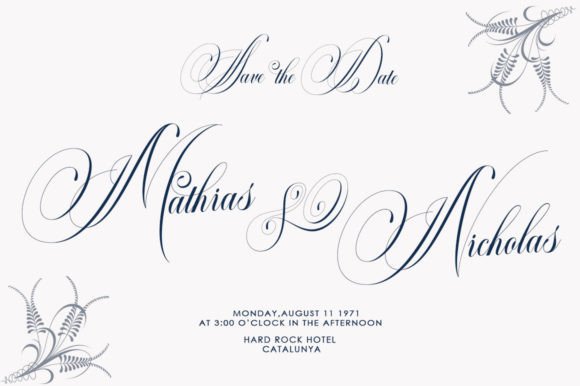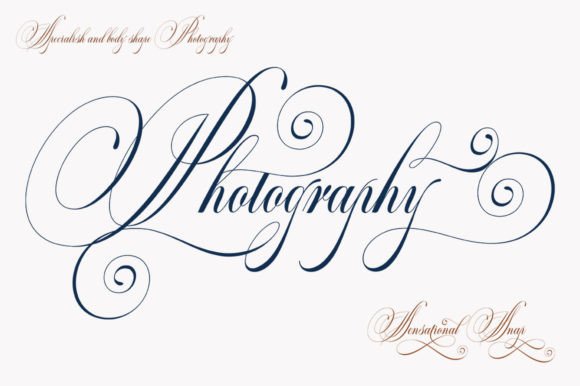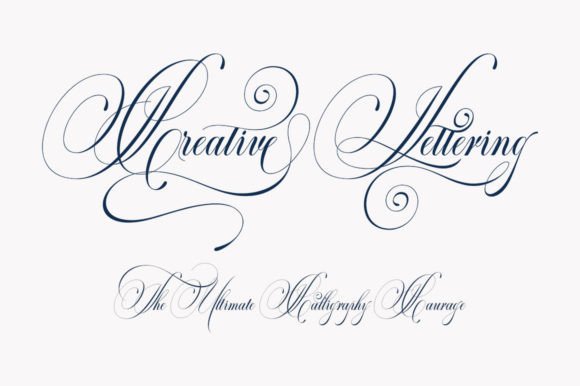
Classical Calligraphy Font
About the Classical Calligraphy Font
Welcome to the world of Classical Calligraphy Font, a typeface that will inspire your next great project. Classical Calligraphy is a vintage calligraphy script font that comes with beautiful alternative characters. Copperplate mixed calligraphy with a handwriting style to show its performance. Classical Calligraphy appears as a typeface that is smooth, clean, feminine, sensual, glamorous, simple, and highly readable.
It’s perfect for logos, wedding invitations, alcohol labels, romantic cards, and more.
Its elegant and sensual nature makes it ideal for branding projects requiring a touch of vintage glamour, particularly in the fashion, beauty, or luxury goods sectors. Use it for headlines, short text blocks on packaging, or sophisticated logos. However, avoid using Classical Calligraphy for body text or lengthy paragraphs; its ornate style would hinder readability.
Consider pairing it with a clean sans-serif like Lato for a modern contrast, or a classic serif such as Garamond for a more traditional feel. A geometric sans-serif, such as Montserrat, could also provide a striking, contemporary counterpoint. For a more cohesive vintage look, a complementary script font with less pronounced flourishes could work well.
The overall personality is sophisticated and romantic, best suited for brands projecting high-end quality and timeless appeal. Avoid pairing it with fonts that are overly playful or casual, as this would clash with its inherent elegance.
Classical Calligraphy Font Usage Examples
Classical Calligraphy Font Example